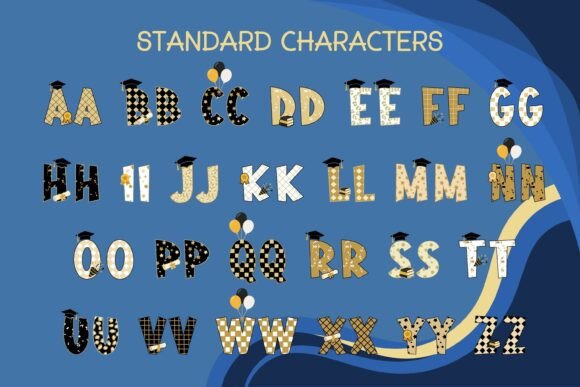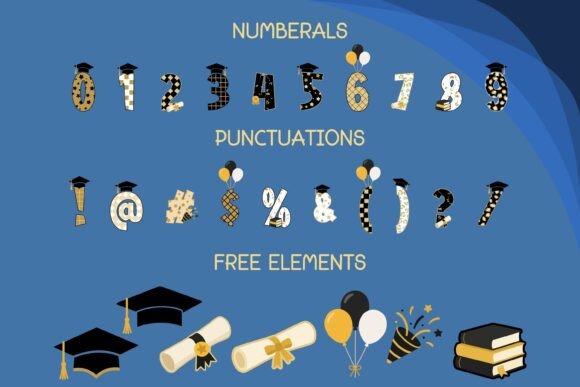
Introduction to Golden Grad Font
As you’re planning a graduation party or creating a special gift for the graduate, have you ever wished you had the perfect design resource to capture the excitement and joy of this milestone moment? The Golden Grad Font is here to make your creative project shine with its bold and playful alphabet letters, adorned with graduation caps, diplomas, balloons, books, confetti, and festive patterns.
This high-quality font bundle is designed to add a modern and fun touch to your graduation season designs, whether you’re a seasoned designer or a crafty DIY enthusiast. With a transparent background, you can easily use it on any project, from sublimation to Cricut crafts, stickers, t-shirts, posters, scrapbooking, and social media graphics.
As a valuable design resource, the Golden Grad Font offers endless possibilities for creative expression, making it a must-have for designers, educators, and parents looking to celebrate this special occasion in style.
Key Features of Golden Grad Font
- Unique design for creative projects and design resources
- High-quality font with a transparent background for versatile use
- Perfect for designers looking for a stylish and modern font for their next creative project
Honest Review: Golden Grad Font
- ✨ Unique and stylish design: The Golden Grad Font boasts a stunning, modern aesthetic that’s perfect for contemporary designs.
- ✨ High-quality font: The font is crisp and clear, making it ideal for print and digital projects.
- ✨ Transparent background: The font’s transparent background makes it easy to customize and pair with different backgrounds.
- ⚠️ Limited character set: The Golden Grad Font has a limited character set, which may not be suitable for extensive text-based projects.
- ⚠️ May require additional formatting: Depending on the design project, you may need to adjust the font size or style to achieve the desired look.
Overall, the Golden Grad Font is a fantastic addition to any designer’s toolkit. While it may have some limitations, its unique design and high-quality typography make it a valuable resource for creative projects. If you’re looking for a stylish and modern font to elevate your designs, the Golden Grad Font is definitely worth checking out.
Common Use Cases for the Golden Grad Font
The Golden Grad Font is suitable for a variety of creative projects, including logo designs, business cards, and brochures. It is also a great choice for designers who want to create high-quality designs with a professional look and feel.